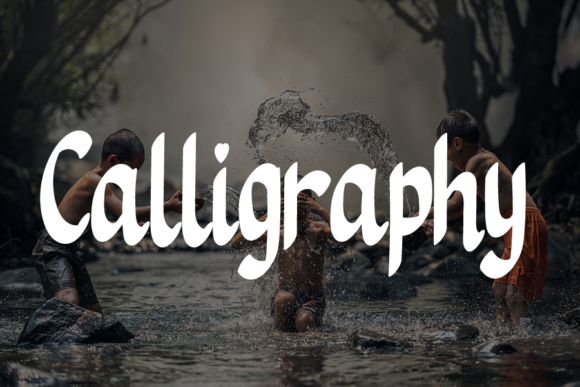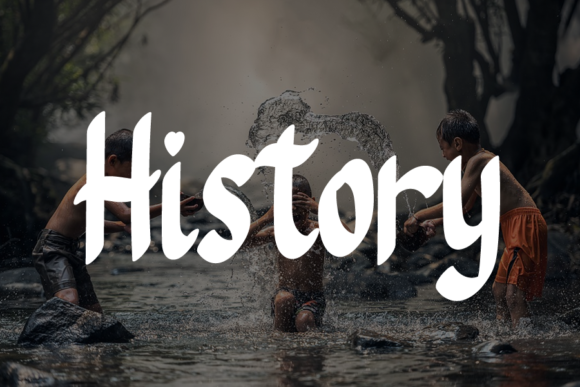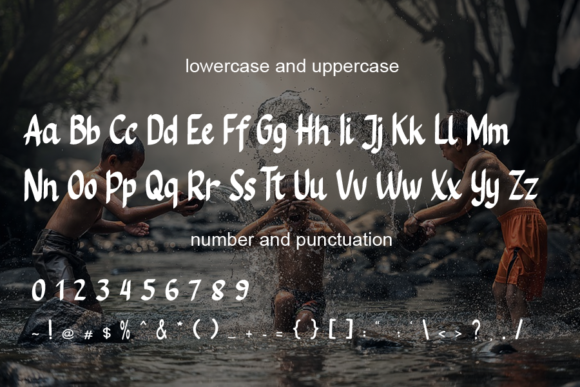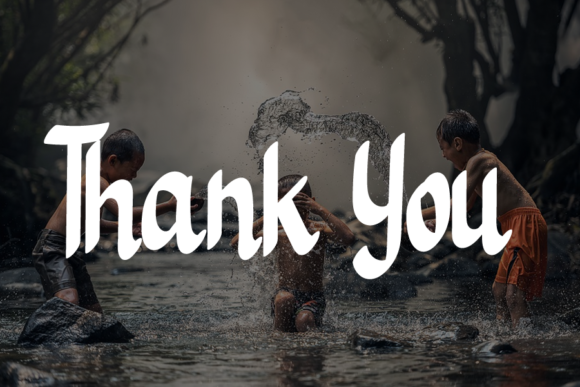
The Magic of Children Font: A Designer’s New Best Friend
I still remember the time I was working on a project for a client’s daughter’s birthday party, and I was struggling to find the perfect font to match the whimsical theme. The client wanted something elegant yet playful, and I was on a mission to deliver. That’s when I stumbled upon the Children Font – a beautiful, handwritten font that instantly captured the essence of childhood magic. In this article, I’ll share my experience with this lovely font, its features, and how to make the most of it in your design projects.
A First Impression: What I Love About Children Font
The moment I opened the font in my design software, I knew I was in love! Here are a few things that caught my attention:
- ✨ Elegant handwritten letters with a touch of sophistication
- ✅ Whimsical swishes and heart elements that add a playful twist
- 🌈 A wide range of OpenType features, glyphs, and stylistic alternates to experiment with
A Few Quirks to Keep in Mind
While I adore the Children Font, there are a few minor limitations to be aware of:
- 🤔 Some users might find the font a tad too ornate for very small text sizes or body text
- ⚠️ Limited support for non-English characters, so make sure to check the font’s capabilities before use
The Story Behind Children Font
The Children Font was designed with love and care by a talented type designer who wanted to capture the essence of childhood wonder. Inspired by the beauty of handwritten letters and the magic of whimsical illustrations, this font is perfect for designers and crafters who want to add a touch of elegance and playfulness to their projects.
| Is the Children Font suitable for body text? | While it’s possible to use the font for body text, it’s recommended for headlines, titles, or short paragraphs due to its ornate nature. |